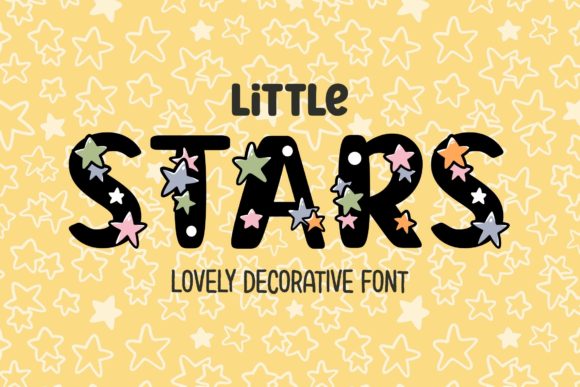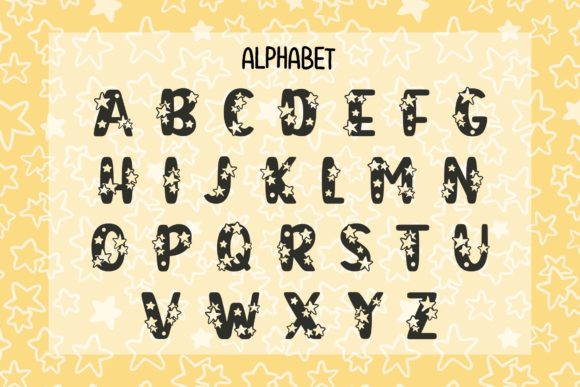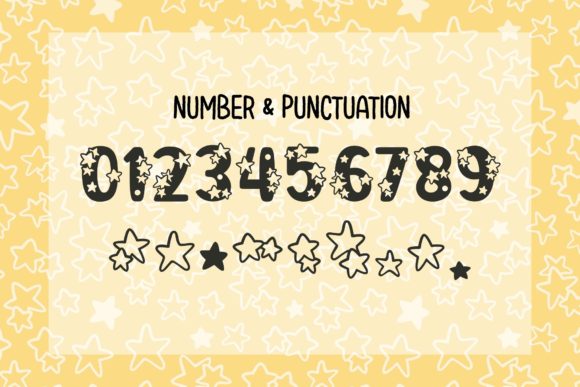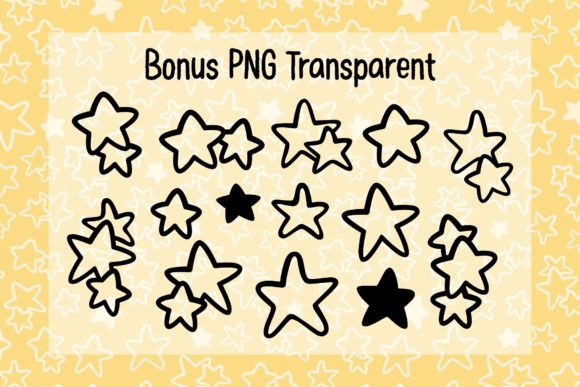
Little Stars Font: A Cute Display Font for Craft & DIY Projects
About the Little Stars Font
Crafted with precision, the Little Stars Font is ready to bring your ideas to life. Little Stars is a lovely decorative font. This font is the perfect fit for all of your logos, branding, social media, crafty DIY projects, and much more!
Little Stars’ decorative style shines in headlines, short-form text on packaging, and social media graphics. Its whimsical nature is ideal for branding projects targeting a younger demographic or those emphasizing playfulness and creativity. Avoid using it for body copy or lengthy text; its ornate details can become visually overwhelming and hinder readability in large blocks.
Consider pairing Little Stars with a clean sans-serif like Open Sans for a balanced contrast, or a classic serif such as Garamond for a touch of elegance. For a more modern feel, a geometric sans-serif like Montserrat could work well.
The font’s overall personality is cheerful and whimsical, making it a strong choice for brands and projects that want to convey a sense of fun and lightheartedness.